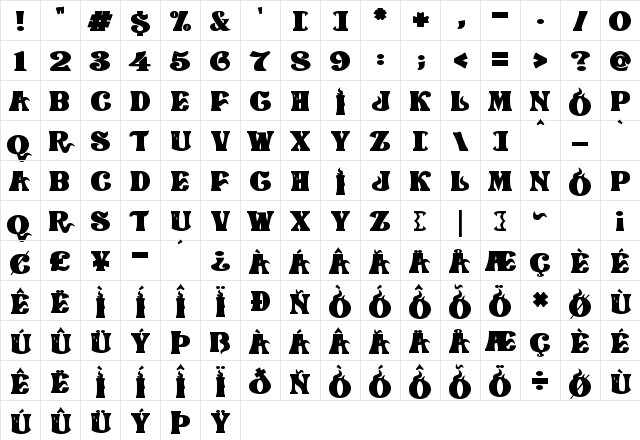
Lovecraftian Horrors Normal
Designer: Joseph Dawson
Design Context for Lovecraftian Horrors
Lovecraftian Horrors carries an unsettling edge - its distorted letterforms are built to unsettle, perfectly suited to horror, Halloween, and dark creative work.
Font Pairing: Pair with a clean neutral sans-serif for body copy to let Lovecraftian Horrors's character lead without overwhelming the composition.
Pro Tip: Use Lovecraftian Horrors at larger display sizes for maximum impact. Consider generous tracking to let the disturbing character of each letterform breathe.